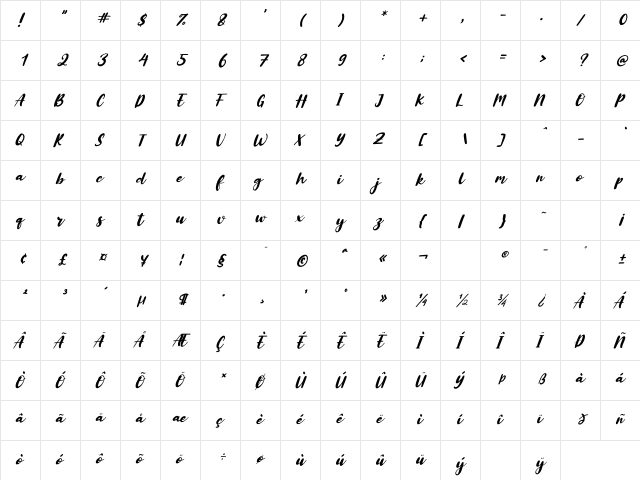
Alberteen Italic Regular
Design Context for Alberteen Italic Typeface
Alberteen Italic is a composed and adaptable typeface that performs quietly and consistently across a wide range of design contexts. The dynamic lean of this cut emphasises speed and emphasis in any layout.